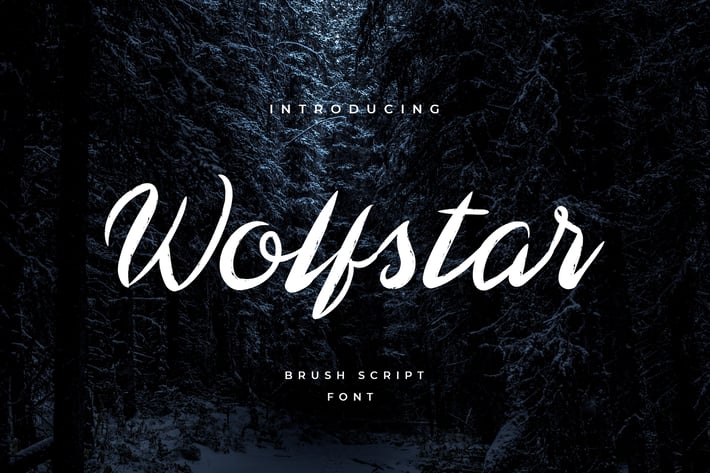
Wolfstar Modern Script Handwritten Font
Wolfstar is a modern script handwritten font with a textured style elegant and modern feel character set. Make your design more beautiful and powerful. This font is suitable for any design like branding, quotes, t-shirt printing, logos, posters, covers, main packaging, business cards, wedding cards and more, so what are you waiting for?